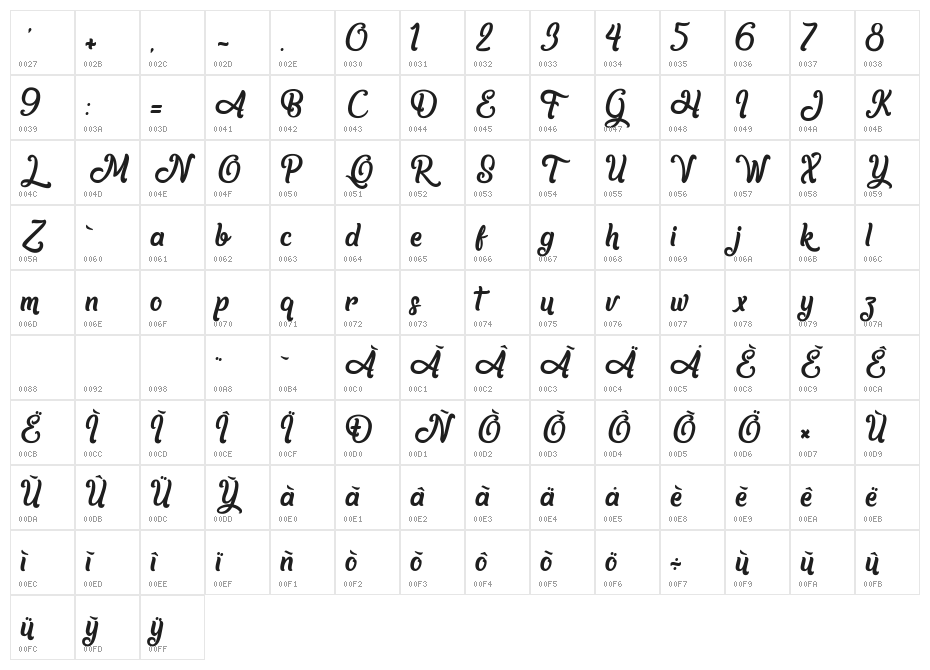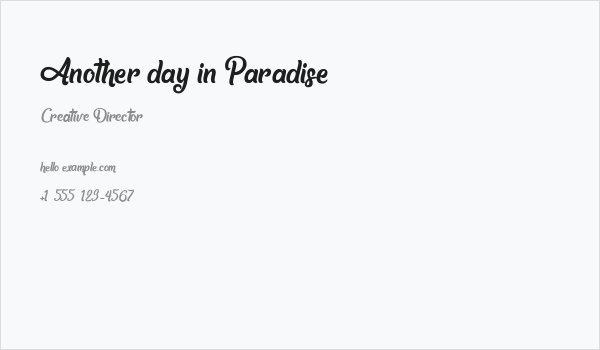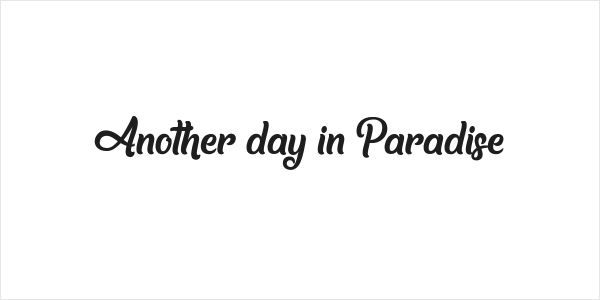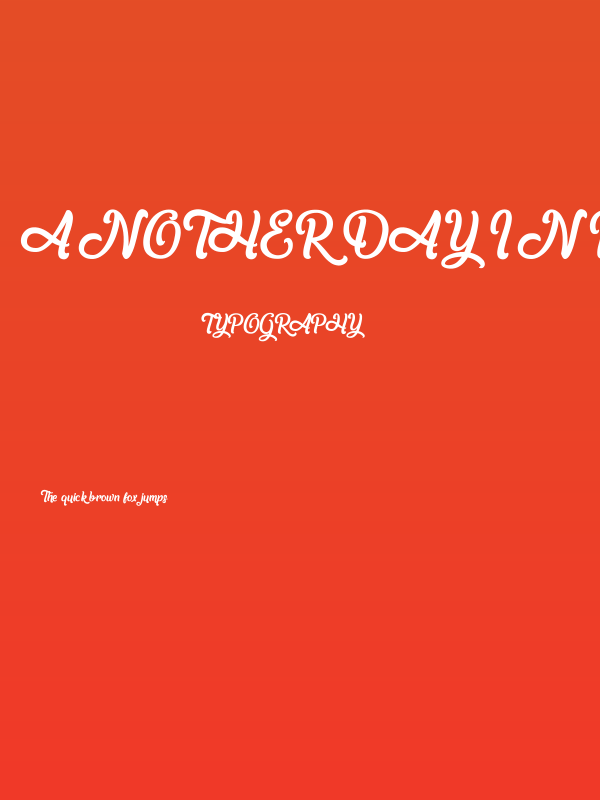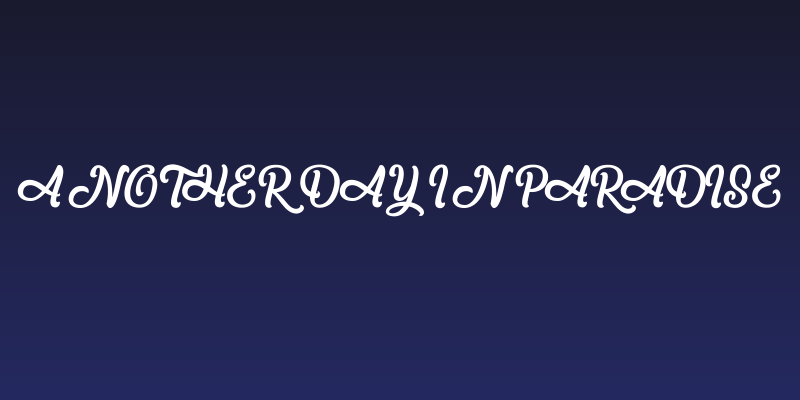
Another day in Paradise Font
Another day in Paradise Description
This font features a playful and elegant script style with a flowing, cursive design. The letters are interconnected, giving a sense of continuity and fluidity. The uppercase characters are ornate, with swirls and loops that add a decorative touch, while the lowercase letters maintain a consistent style with slightly less embellishment. The numerals are bold and clear, matching the overall aesthetic of the font. Special characters are thoughtfully integrated, maintaining the whimsical and artistic feel. This font is ideal for projects that require a touch of elegance and creativity.
| Proposed Projects | Ideal for wedding invitations, greeting cards, branding, and decorative signage. |